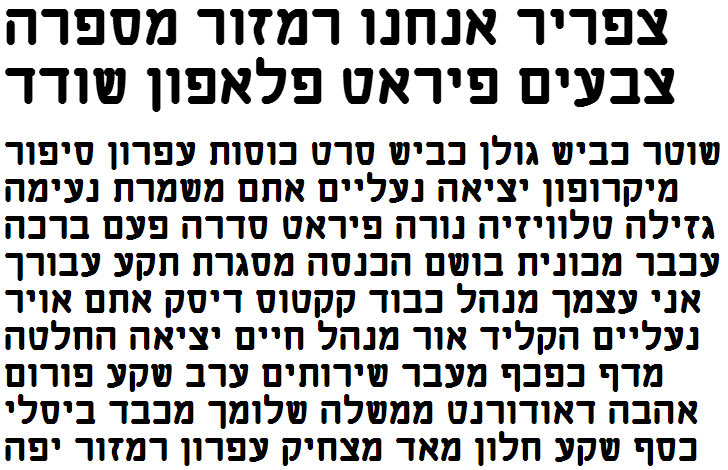
✓ It seems like the first time I ever tried making a "normal" appearing font. A simple sketching of letters, as if in stencil style, led to a very simple set of letters, which actually isn't simple at all. Named after a good friend of mine from the army.
Lin Bold Hebrew Font